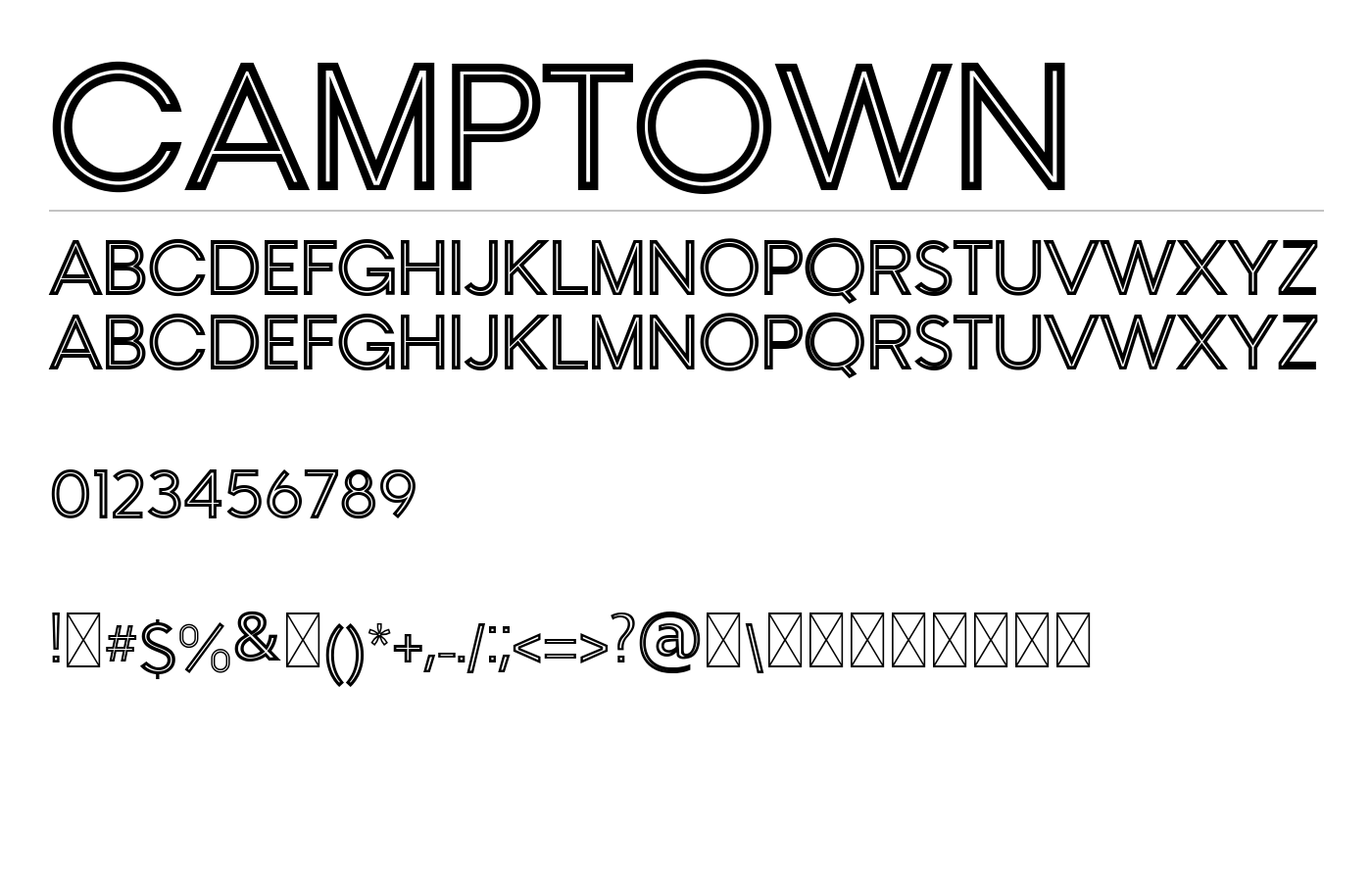
CAMPTOWN is a modern, geometric sans serif font characterized by its double-line stroke design, creating a clean and stylish outline effect. With its upright, uppercase letterforms, even stroke weight, and generous spacing, it brings a contemporary, elegant feel perfect for eye-catching headlines, logos, or branding where a sleek and distinctive look is desired. This font works well in fashion, editorial, and display contexts, adding a sophisticated yet approachable vibe.
CAMPTOWN Font
About CAMPTOWN Font